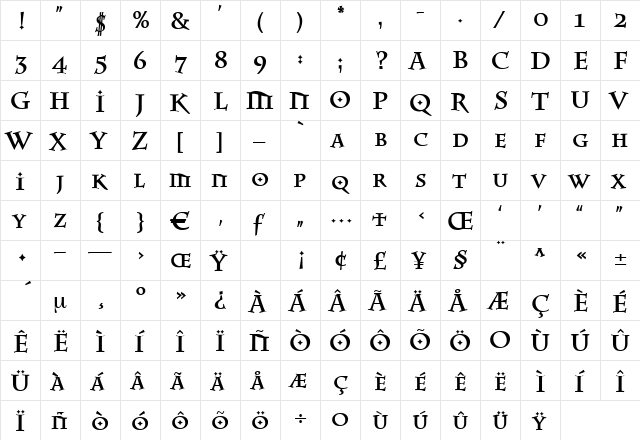
EquipeMedium Regular Font Preview
EquipeMedium Regular
Design Context for EquipeMedium Typeface
EquipeMedium offers clean, dependable letterforms without strong stylistic allegiance, making it a practical choice for designers who need flexibility.
Pro Tip: Use EquipeMedium in both headline and body roles to test its range before committing to a single application.